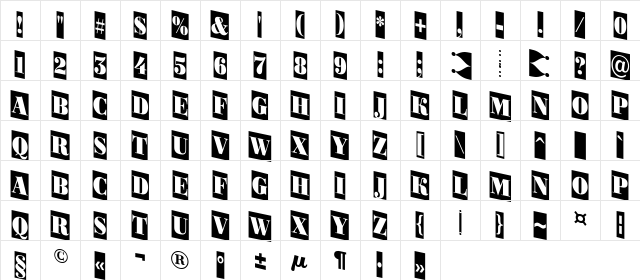
a_BodoniOrtoNrTtlCmDn Regular Free Font
a_BodoniOrtoNrTtlCmDn Regular
Design Context for a_BodoniOrtoNrTtlCmDn
a_BodoniOrtoNrTtlCmDn is a composed and adaptable typeface that performs quietly and consistently across a wide range of design contexts.